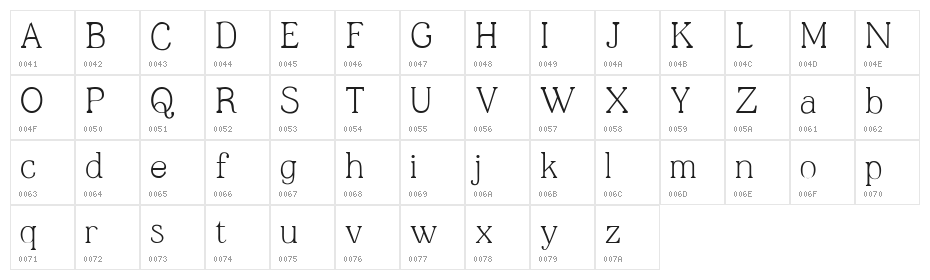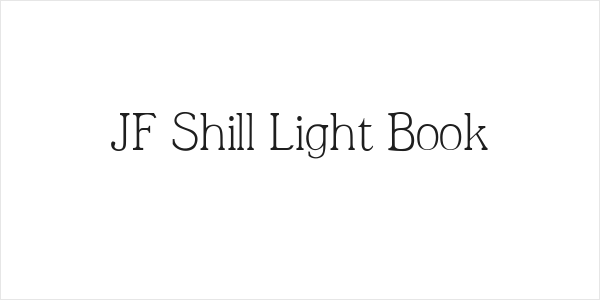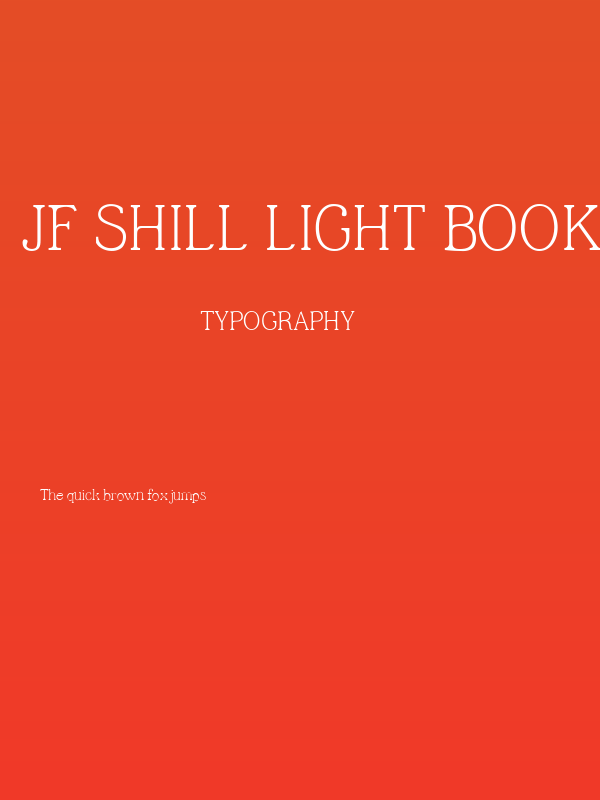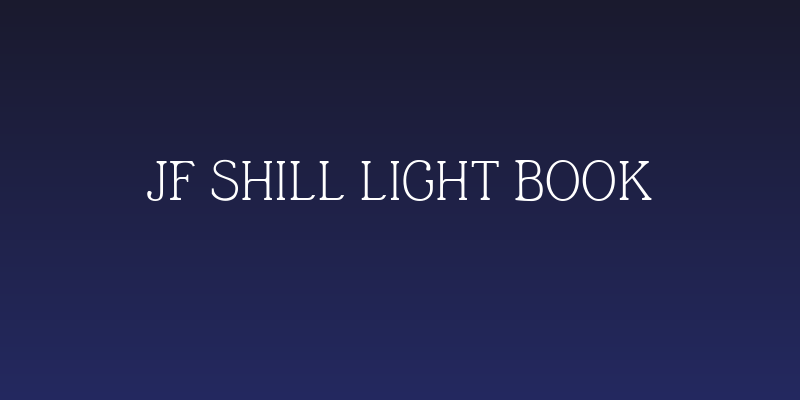
JF Shill Light Book Font
JF Shill Light Book Description
This font features a clean and elegant design with a modern twist. The characters are well-proportioned, with a slight curvature that adds a touch of sophistication. The uppercase letters are tall and commanding, while the lowercase letters maintain a consistent flow, making it versatile for various design needs. The numerals are clear and easy to read, and the special characters are distinct, ensuring they stand out in any context. Overall, this font balances readability with a unique style, making it suitable for both digital and print media.
| Proposed Projects | Ideal for branding, editorial design, websites, and advertising materials. |